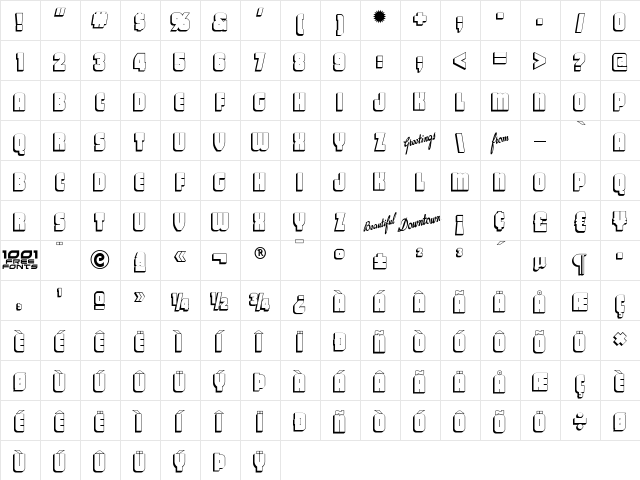
Vacation Postcard NF Regular
Design Context for Vacation Postcard NF Typeface
Vacation Postcard NF is a composed and adaptable typeface that performs quietly and consistently across a wide range of design contexts.